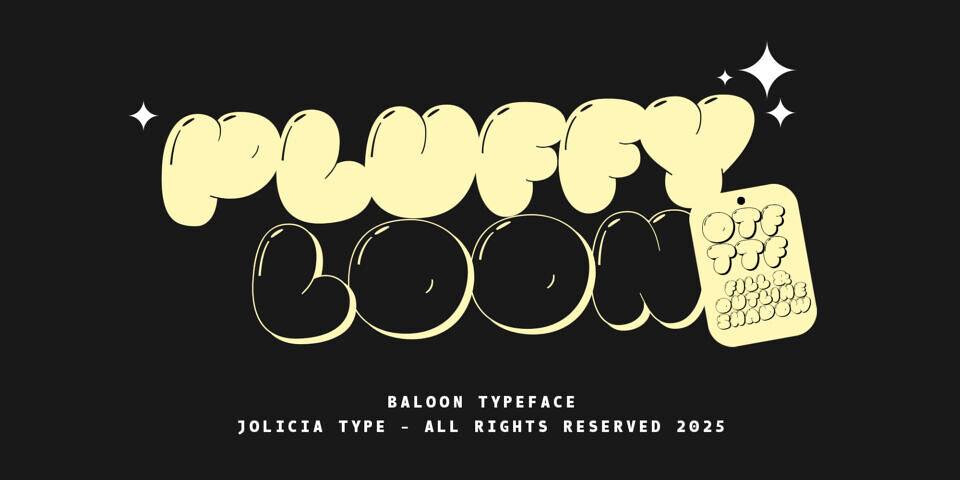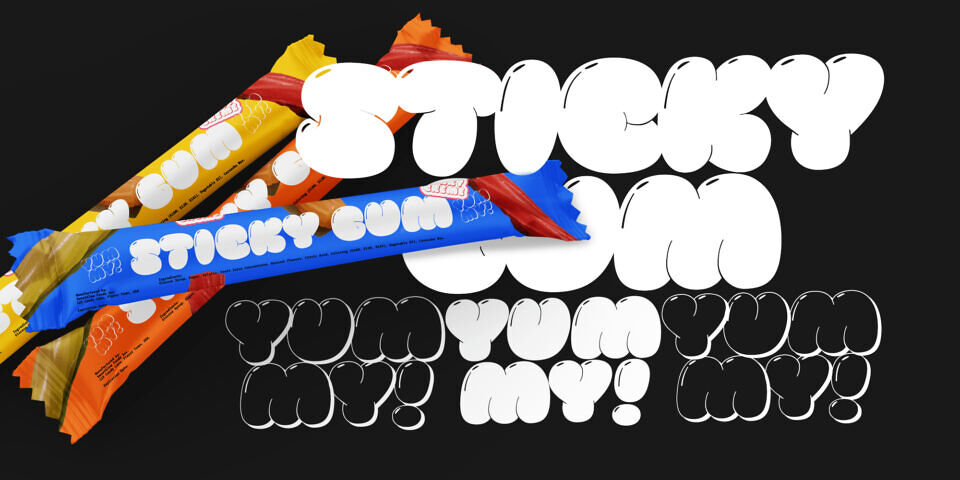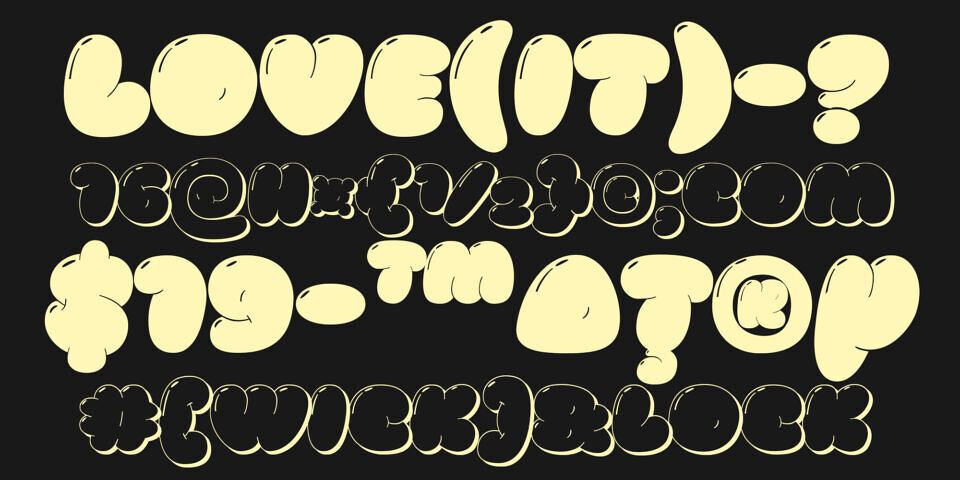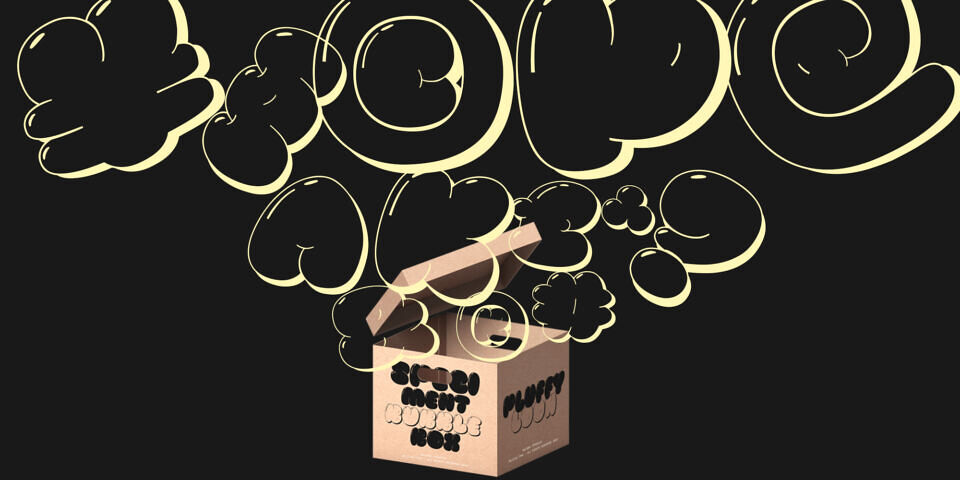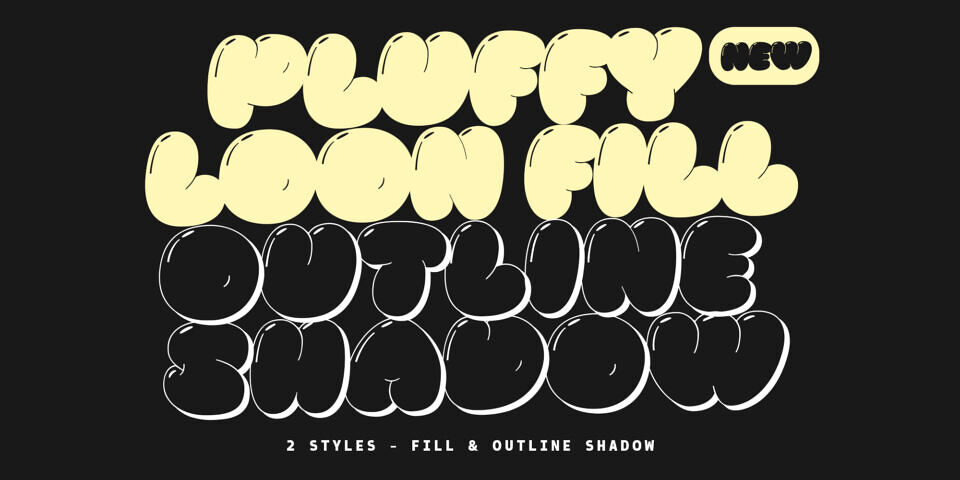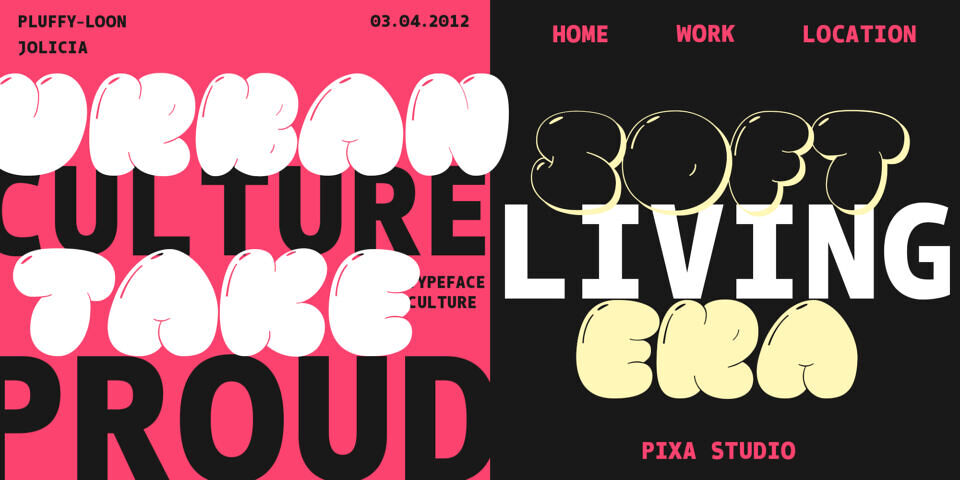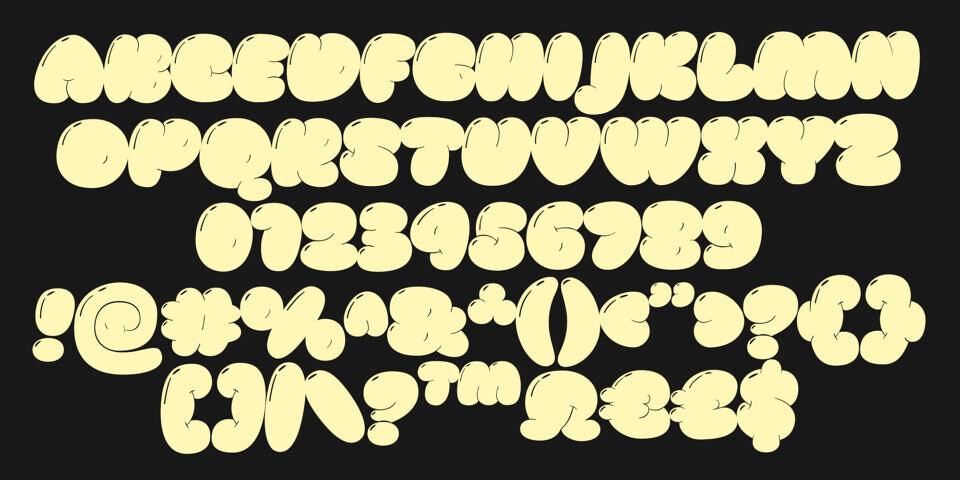
Pluffyloon is a bold, playful balloon-style font that’s full of life and imagination. Each letter is crafted to look like an inflated balloon, complete with shiny highlights that create a fun, three-dimensional effect — just like a real helium balloon ready to float!
Pluffyloon comes with 2 styles:
- Fill — a solid, bold balloon style (Paid version)
- Outline Shadow — a fun outlined version with a playful shadow